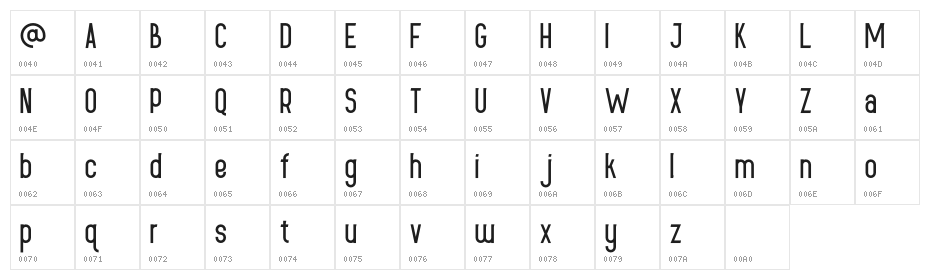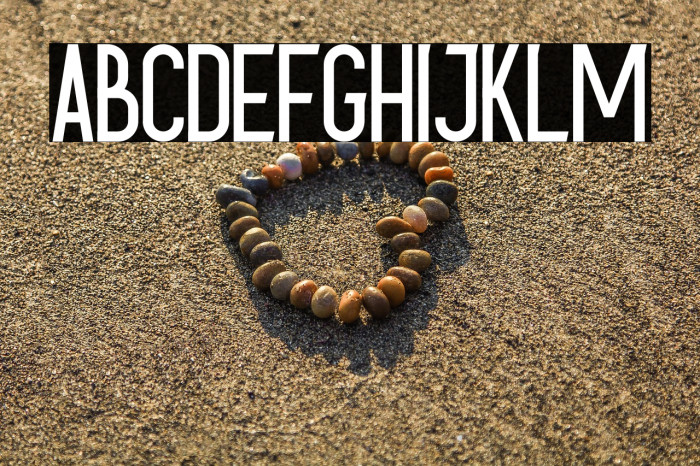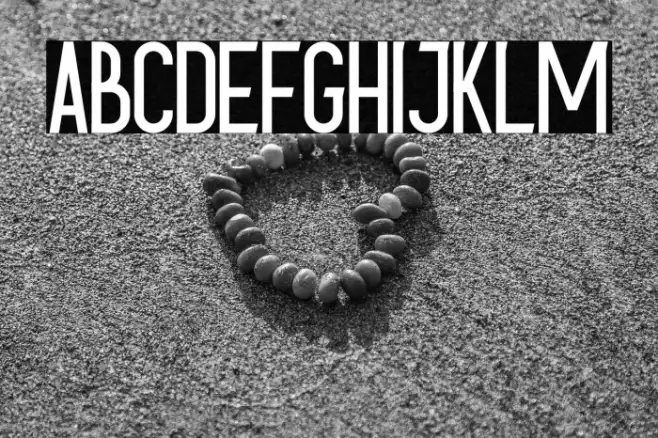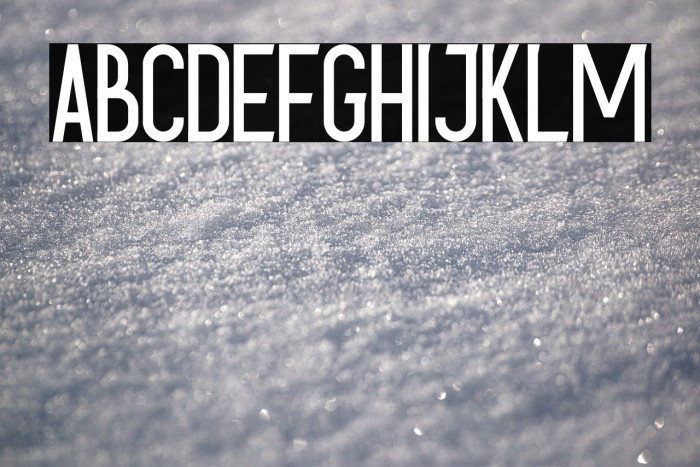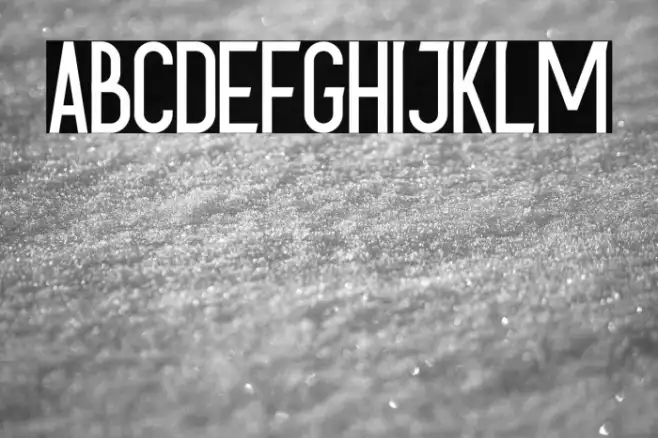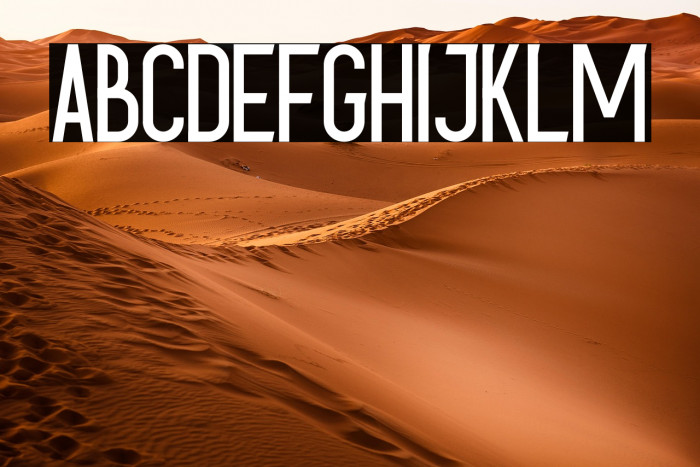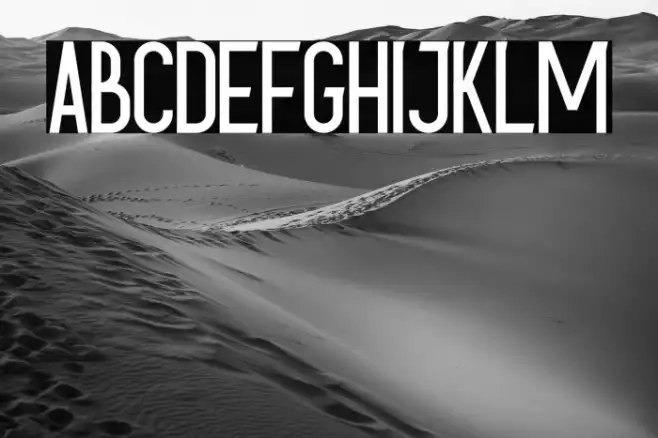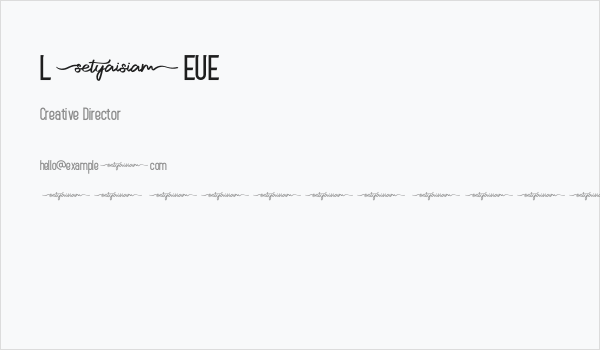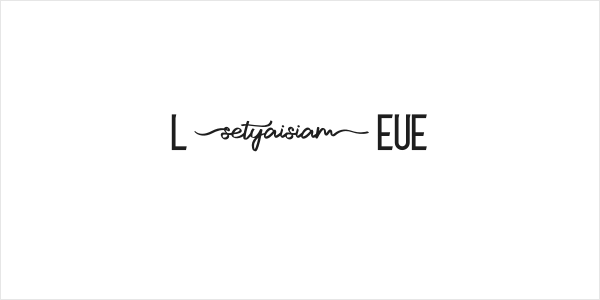
LÚEUE Font
LÚEUE Description
This font features a modern and clean design with a slightly condensed structure, offering a sleek and contemporary look. The characters are tall and narrow, with consistent stroke widths that provide a uniform appearance. The uppercase letters are bold and commanding, while the lowercase letters maintain a harmonious balance with their rounded edges. The font's geometric style is evident in the symmetrical shapes and straight lines, making it highly legible and versatile. Its simplicity and elegance make it suitable for a wide range of applications, from digital interfaces to print media.
| Proposed Projects | Ideal for branding, advertising, web design, and editorial layouts. |